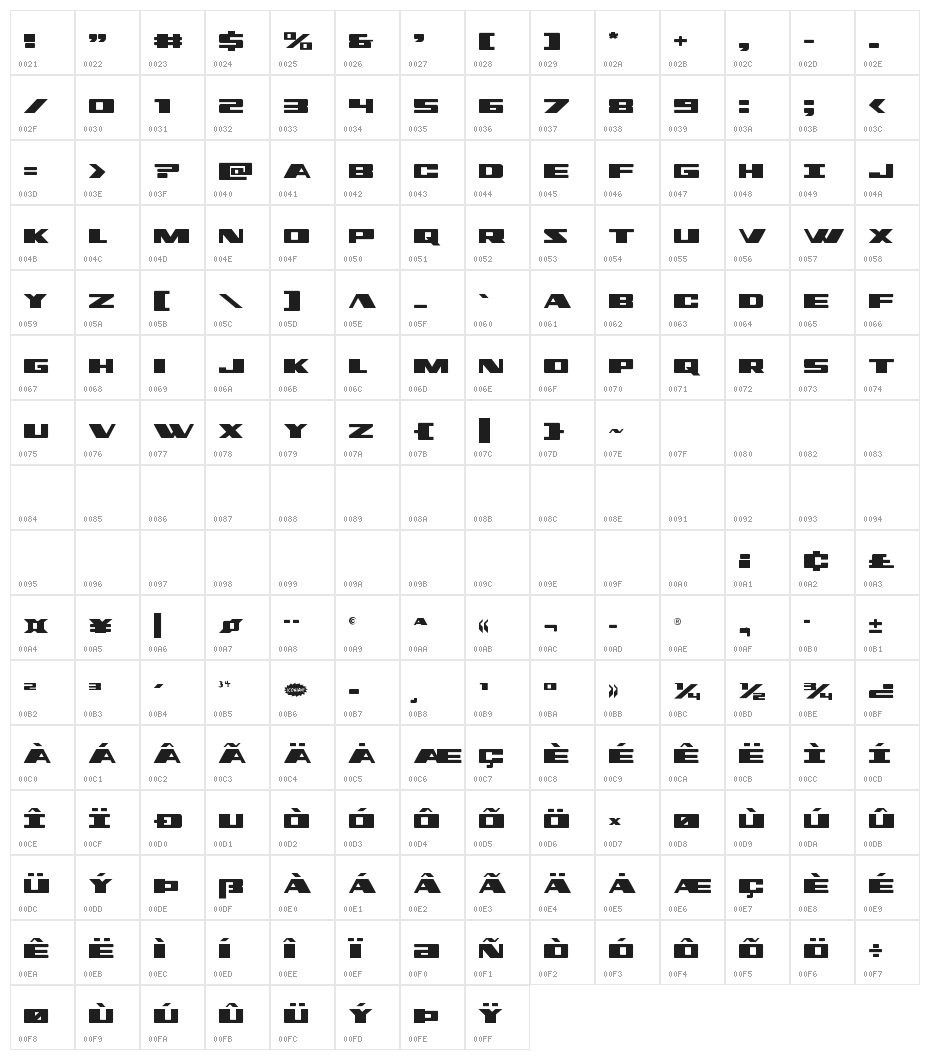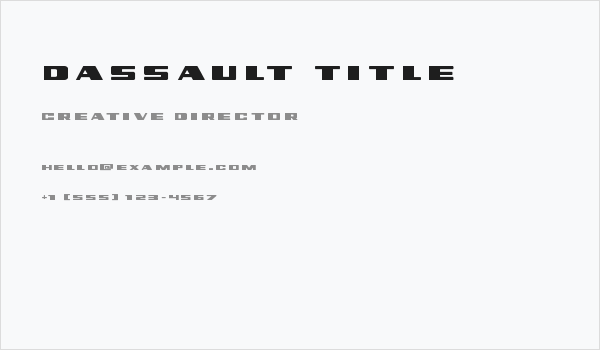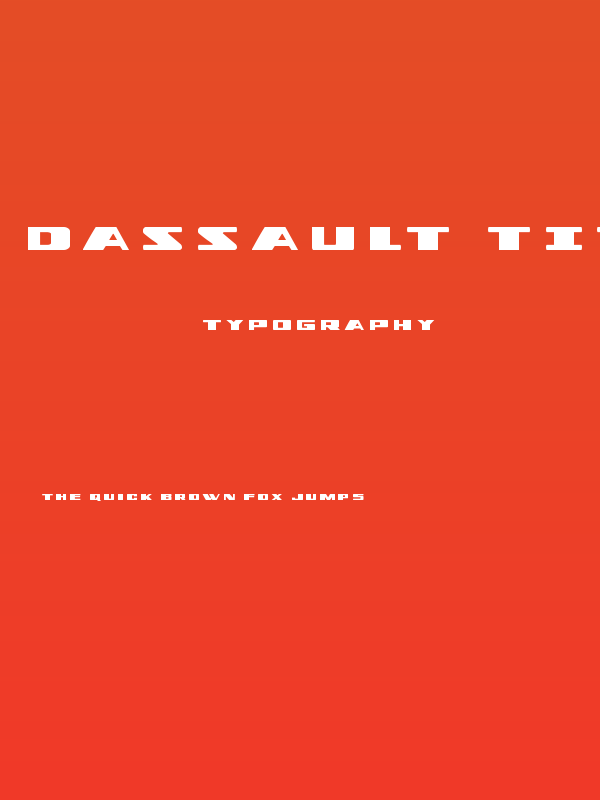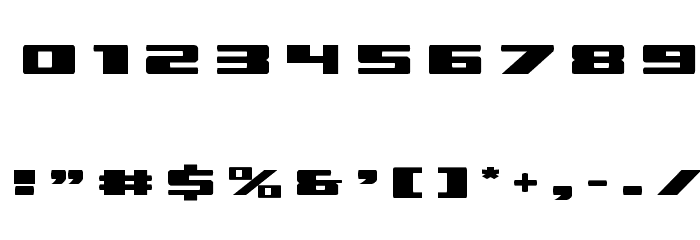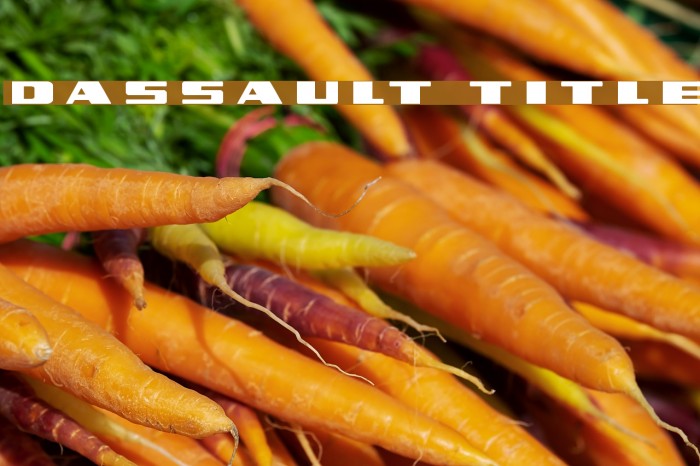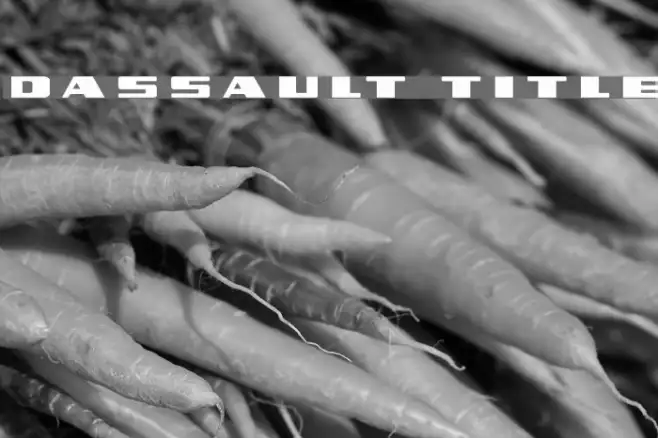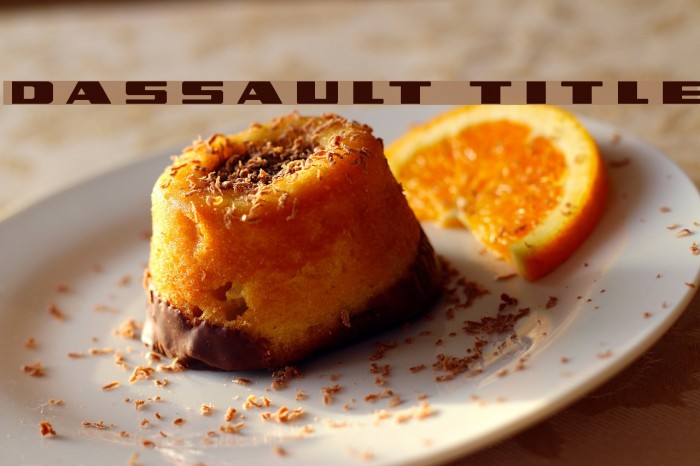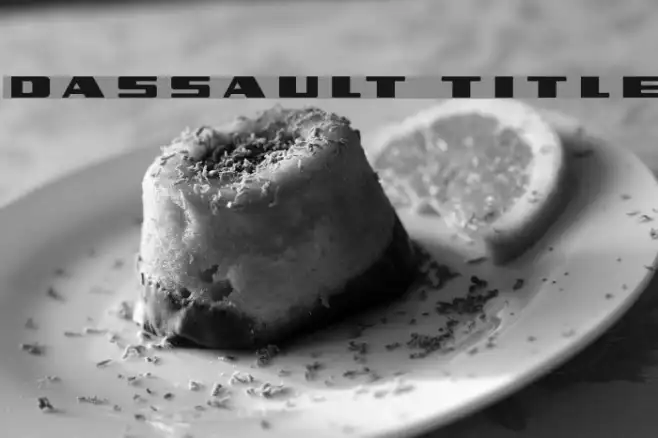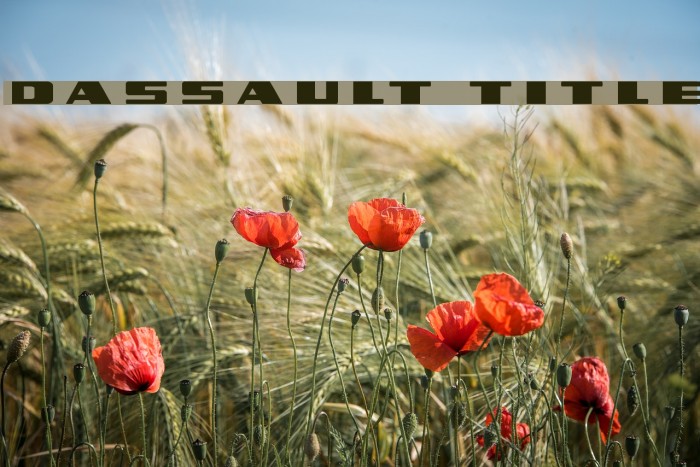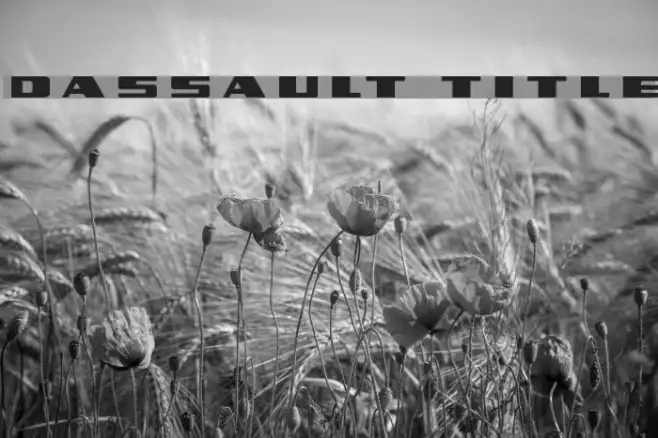
Dassault Title Font
Dassault Title Description
This font features a bold, geometric design with a futuristic and industrial feel. The characters are constructed with sharp angles and straight lines, giving them a strong and assertive presence. The uppercase letters are particularly striking, with a uniform height and width that creates a cohesive look. The lowercase letters maintain the same boldness, ensuring readability while retaining the font's distinctive style. Numbers and special characters are designed with the same attention to detail, making them suitable for a variety of uses. The overall appearance is modern and impactful, ideal for projects that require a strong visual statement.